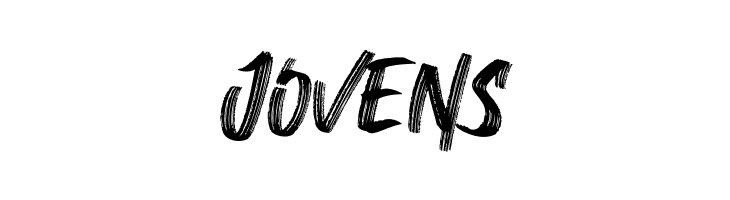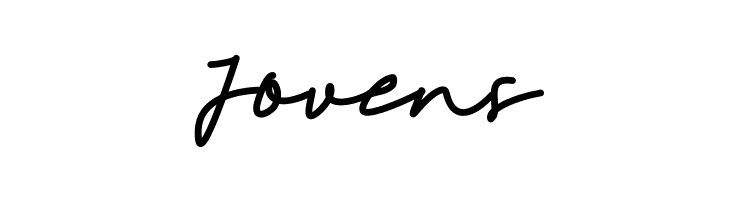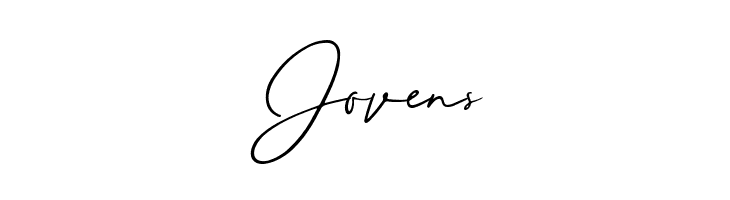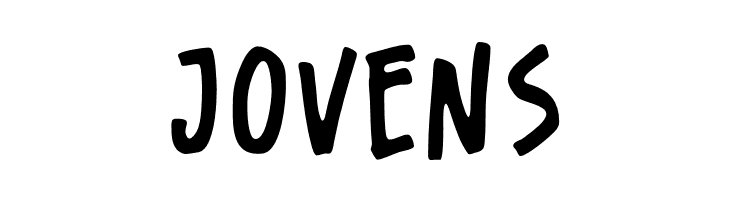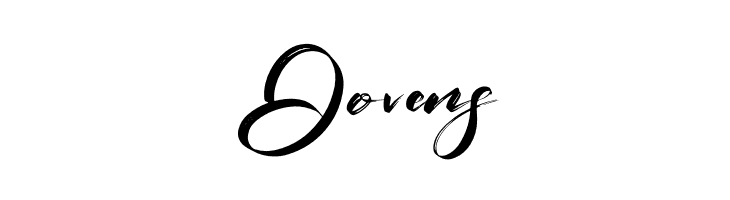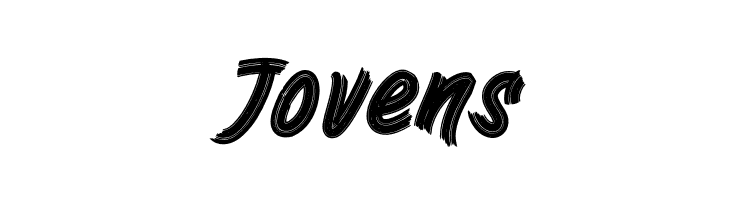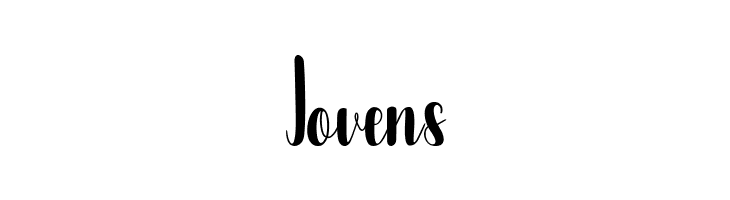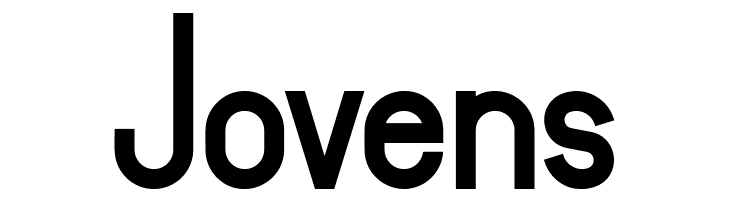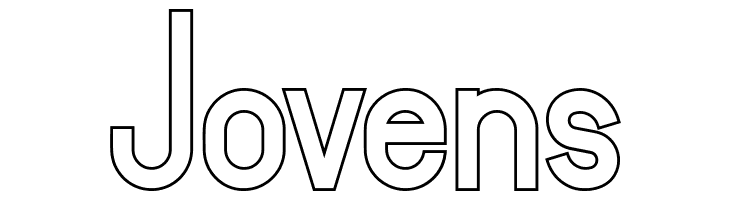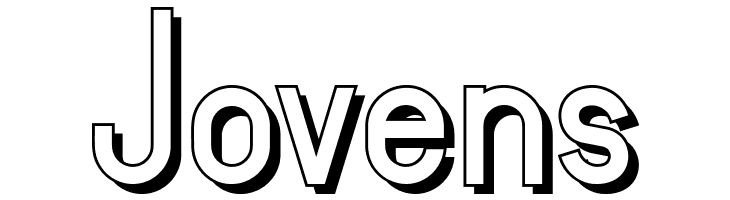
• Binero Regular
A futuristic, pixelated font with a digital and geometric style.
• Binetta Signature
An elegant, cursive font with a fluid, handwritten style.
• Bing Bam Boum
A bold, playful display font with dynamic strokes and cartoonish style.
• bingbong
A playful, rounded handwritten font with a whimsical and friendly style.
• Bingbong-Regular
A bold, hand-drawn font with a playful and informal style.
• Bingkai
A bold, cursive script font with a lively and flowing style.
• Bingke Berendam DEMO
A bold, geometric sans-serif font with a modern and clean design.
• Bingke Coklat DEMO
A bold, textured font with diagonal hatching and rounded edges for a modern, decorative look.
• Bingke Daging DEMO
A modern, geometric font with tall, narrow uppercase letters and rounded lowercase letters.
• Bingke Jagung DEMO
A bold, modern font with a unique striped pattern and geometric shapes.
• Bingke Kacang Ijo DEMO
A bold, geometric font with a three-dimensional outline effect.
• Bingke Keju DEMO
A modern, geometric font with a hollow interior and consistent design.
• Bingke Kentang DEMO
A modern, textured font with diagonal line patterns and geometric structure.
• Bingke Labu DEMO
A modern, decorative font with a diagonal line texture and uniform stroke width.
• Bingke Nangka DEMO
A bold, geometric font with a three-dimensional outline and modern aesthetic.
• Bingke Pisang DEMO
A modern, outlined font with a geometric and minimalistic design.
• Bingke Setile DEMO
A modern, geometric font with tall, narrow characters and a sleek design.
• Bingke Susu DEMO
A bold, outlined geometric font with a modern and striking appearance.
• Bingo Fiesta
Bold, outlined display font with a playful, energetic style.
• Bingo Reky
A bold, brush-style font with dynamic, hand-painted strokes.
A tall, elegant font with flowing, cursive-like strokes and dramatic flair.